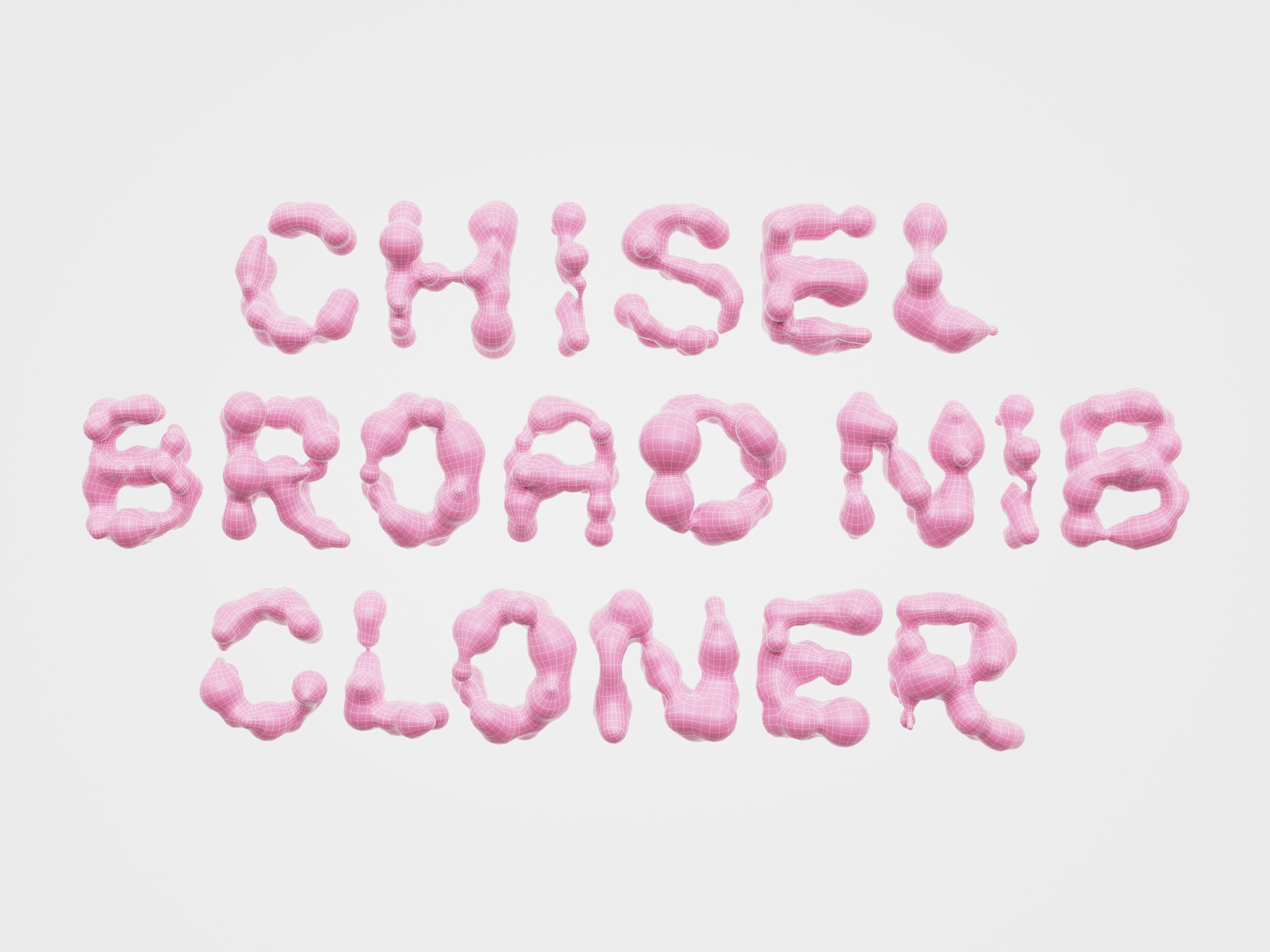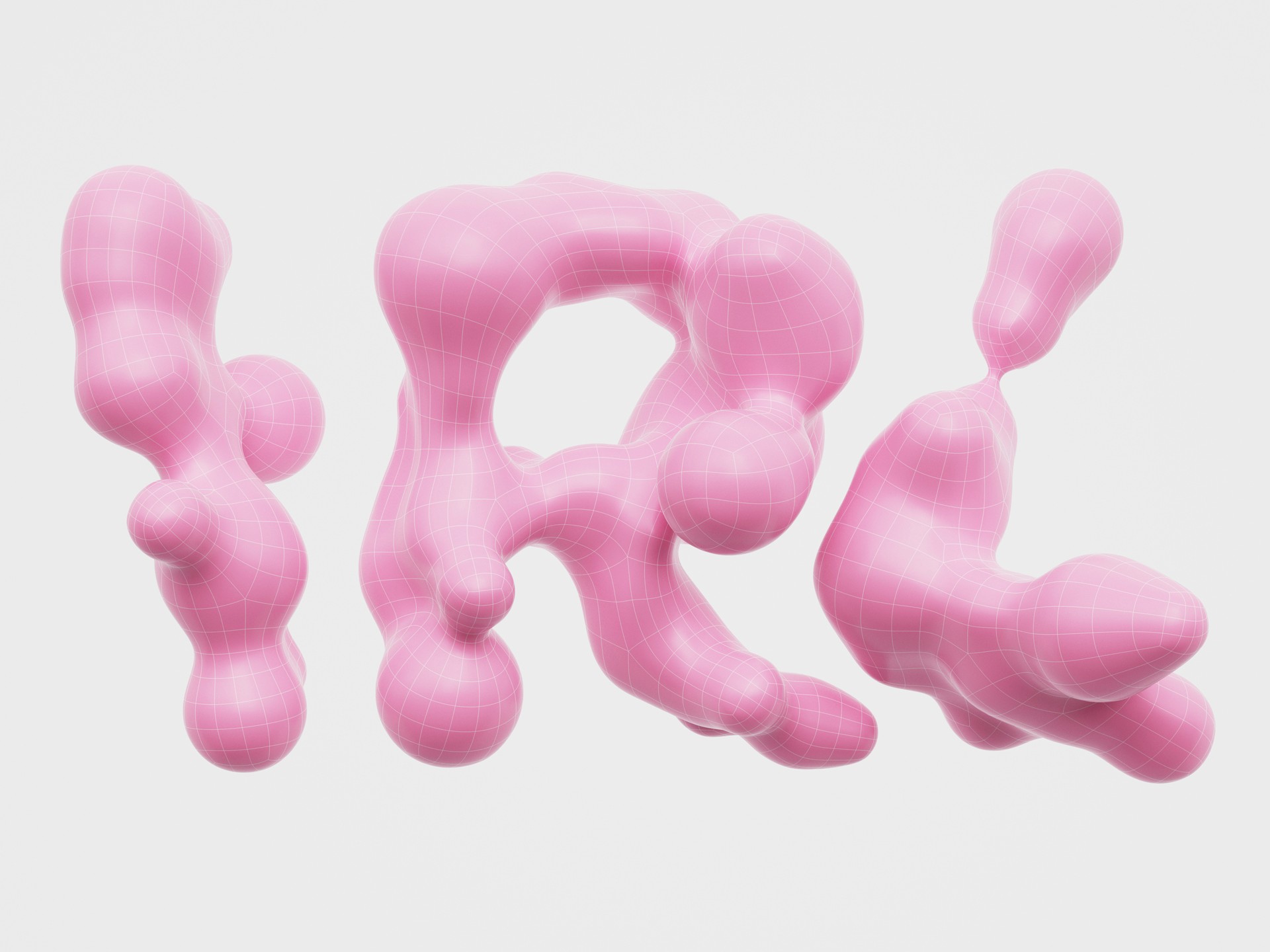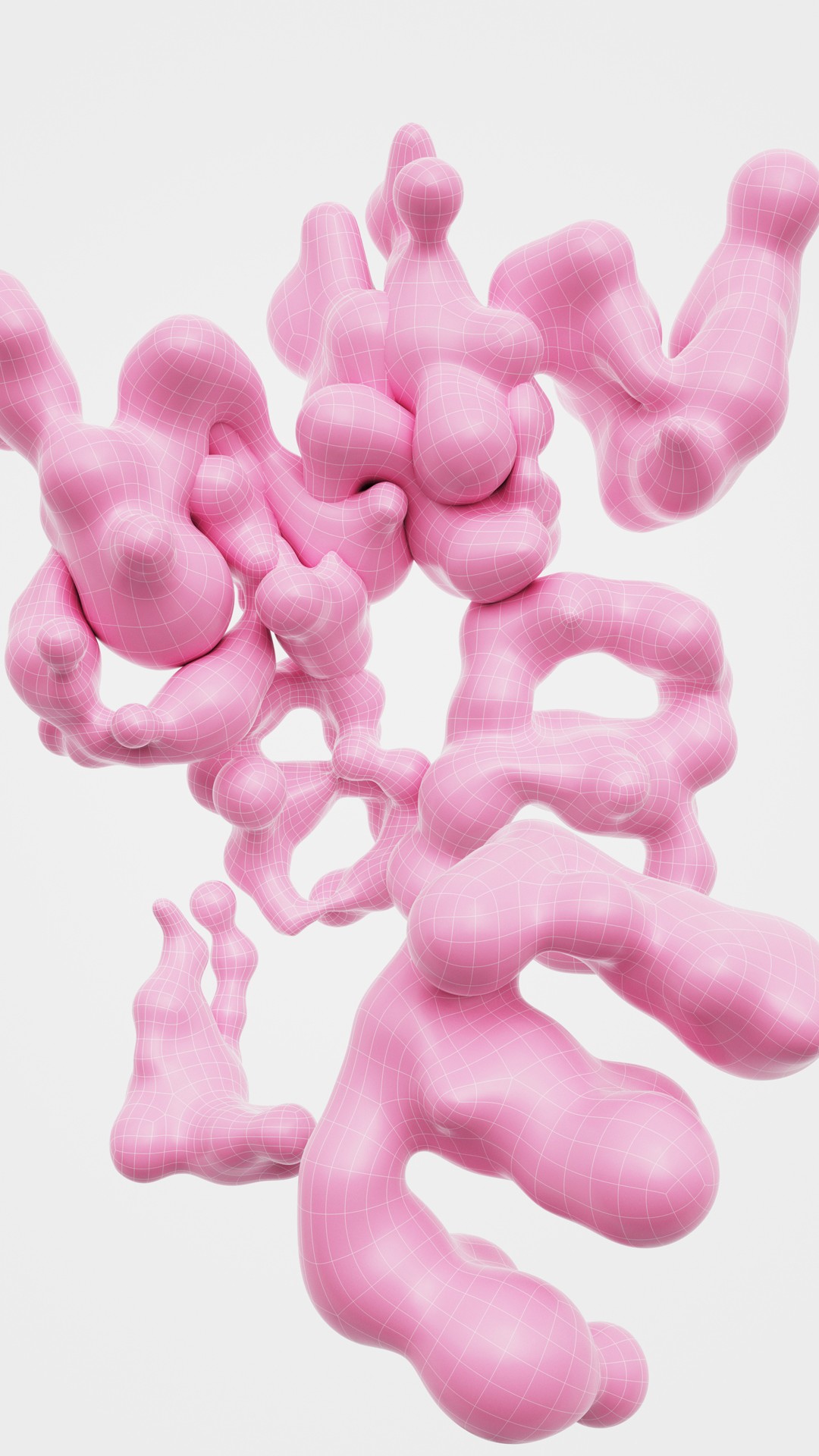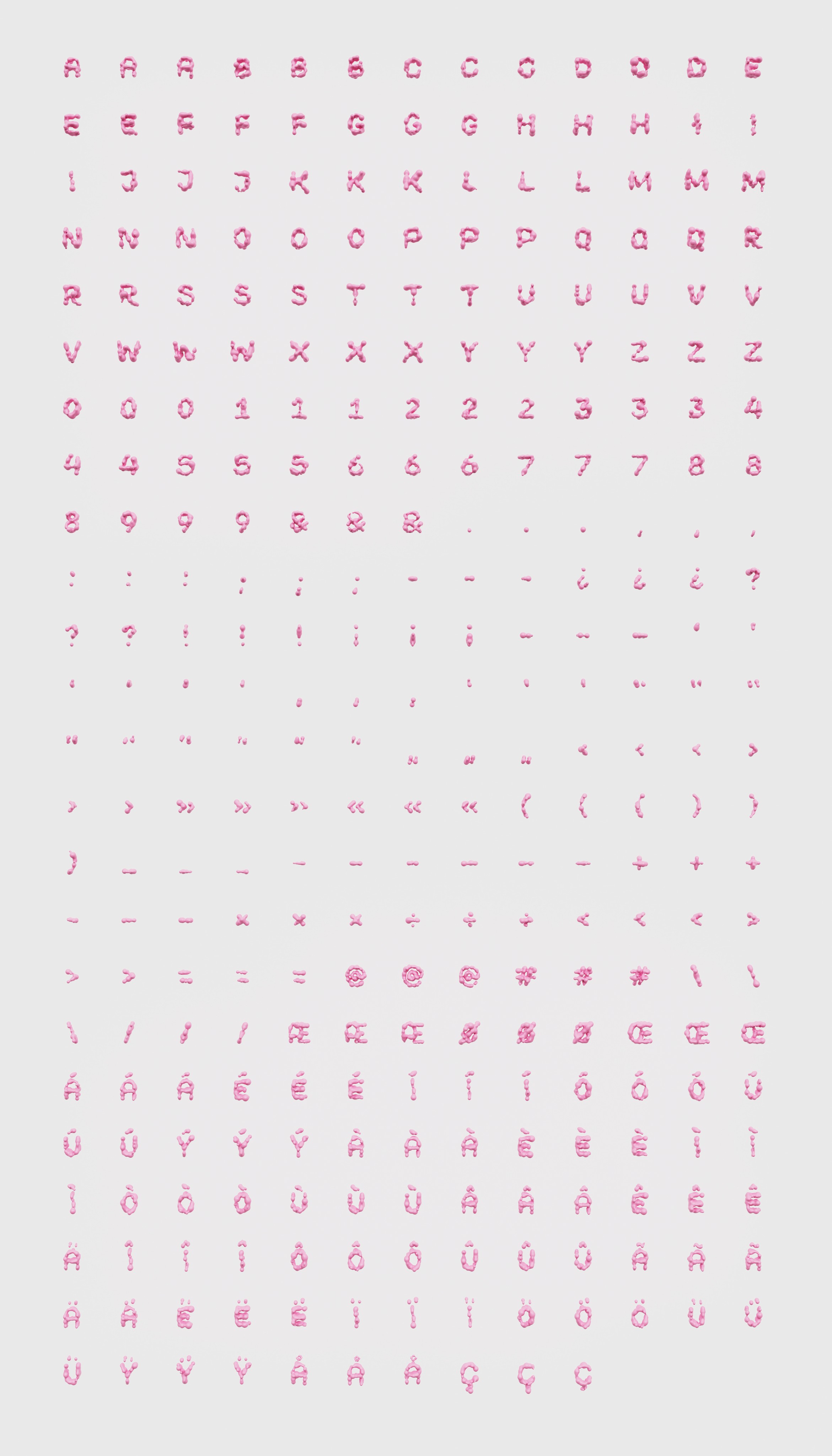
TC Bubble
TC Bubble is a quintessential motion graphics typeface utilizing classic mograph tools to build a coherent set of bubbly glyphs. Cloners, noises and volume meshing leave obvious marks just like chisels did back in the day.
The complete obedience to the selected tools was intended as an exploration of tool-centric design with unusual instruments. The obvious traces are a nod to the marks of more traditional type design tools that influence type design to this day.